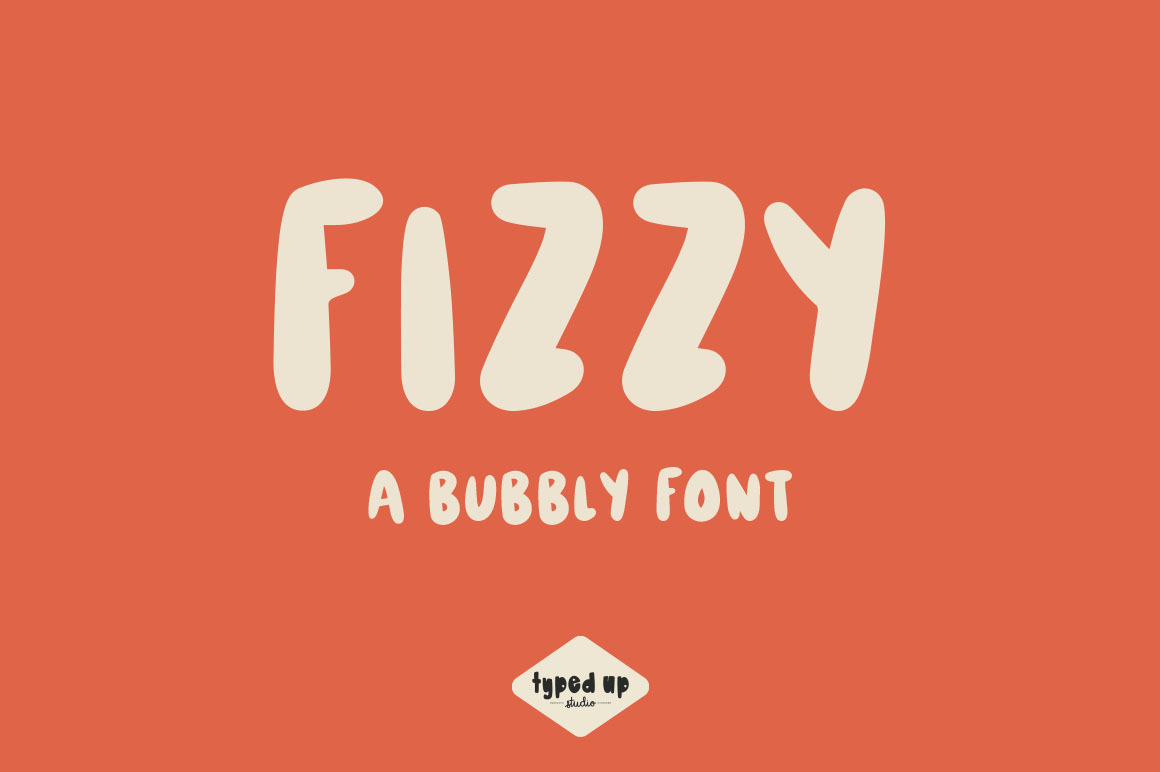
Fizzy | Bubbly Display Font
Fizzy is a handwritten bubbly display to bring some fun and spunk to your designs. Includes uppercase, lowercase, numbers, & punctuation all in both Regular and Outline. Mix and match them, or layer them on top of each other for added pizazz! Fizzy features language support for European, South American, and Oceanic languages - please test your characters in the type testing tool to make sure the characters you need are included before purchasing!